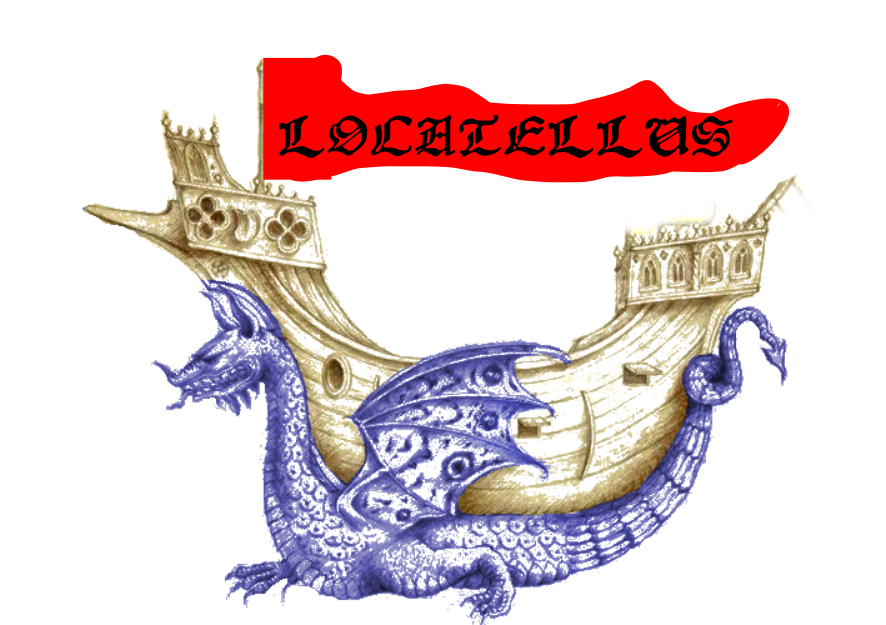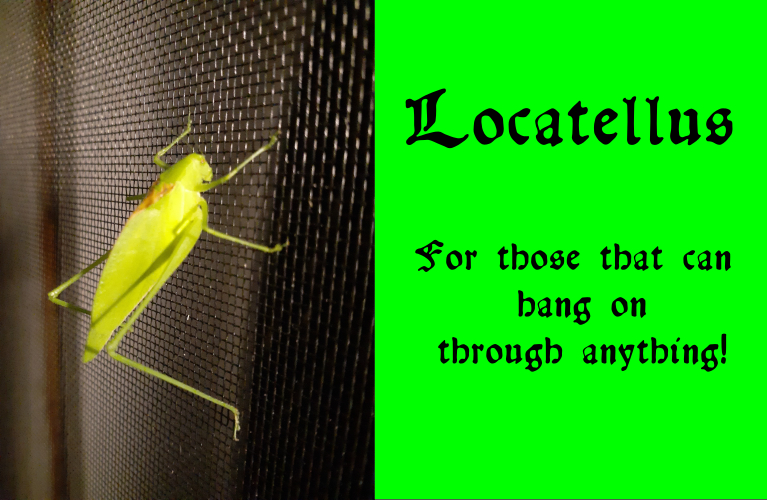
About Locatellus Font
Locatellus is a unique blackletter font with a medieval feel. Get inspired by this font and use it to create outstanding designs!